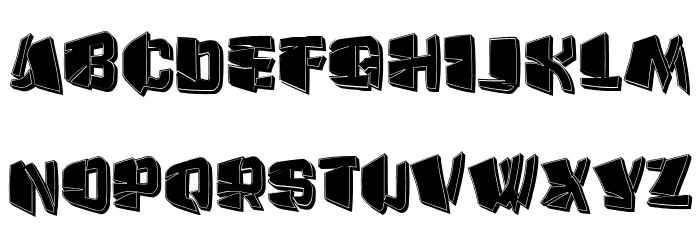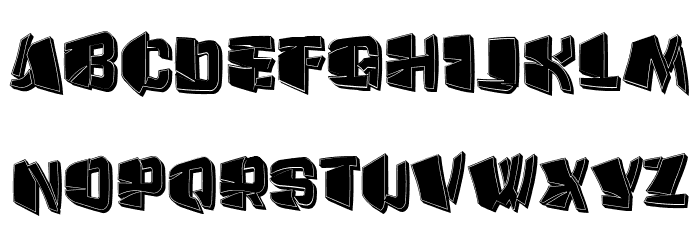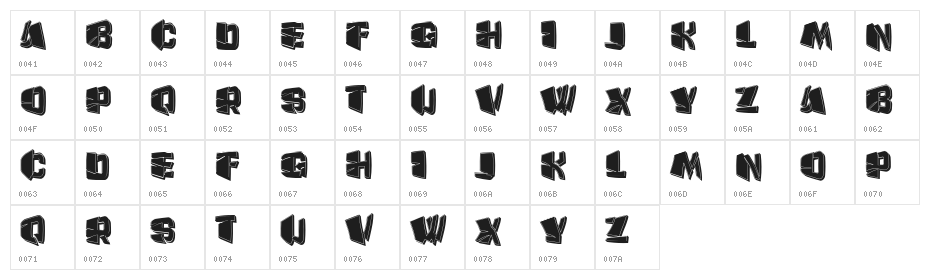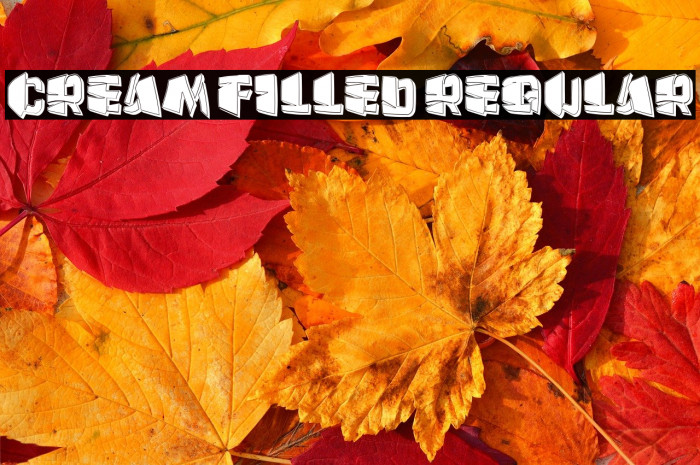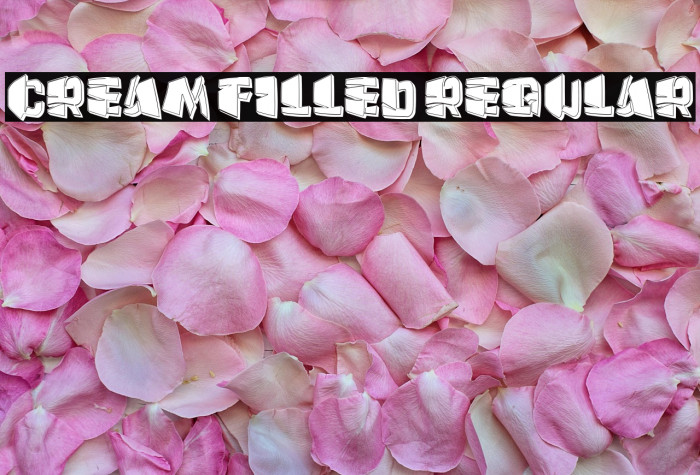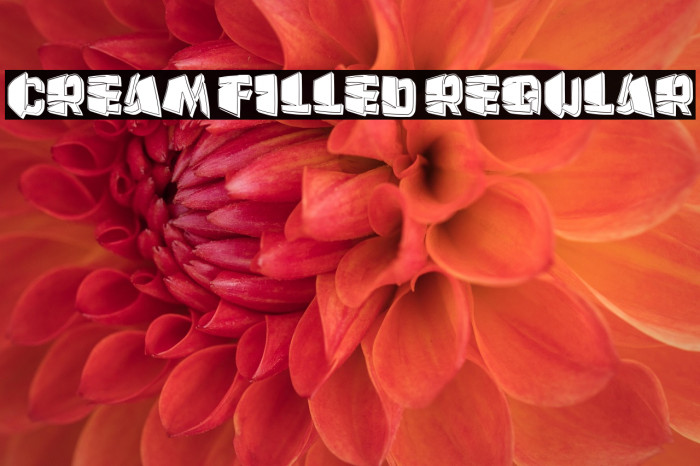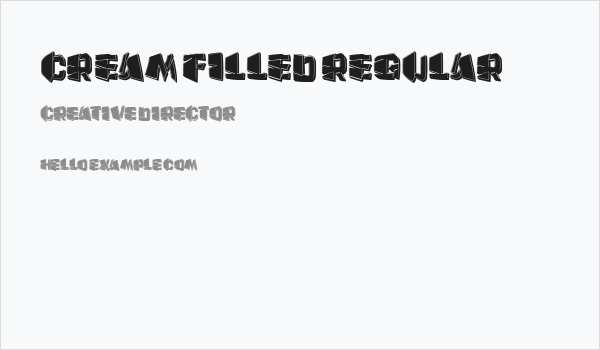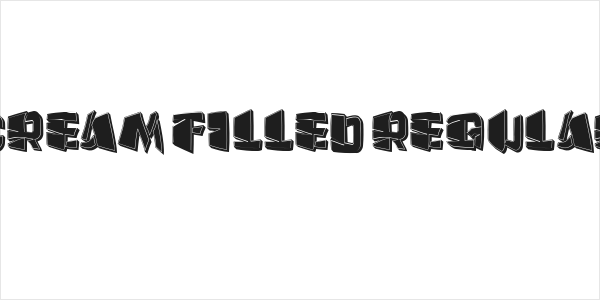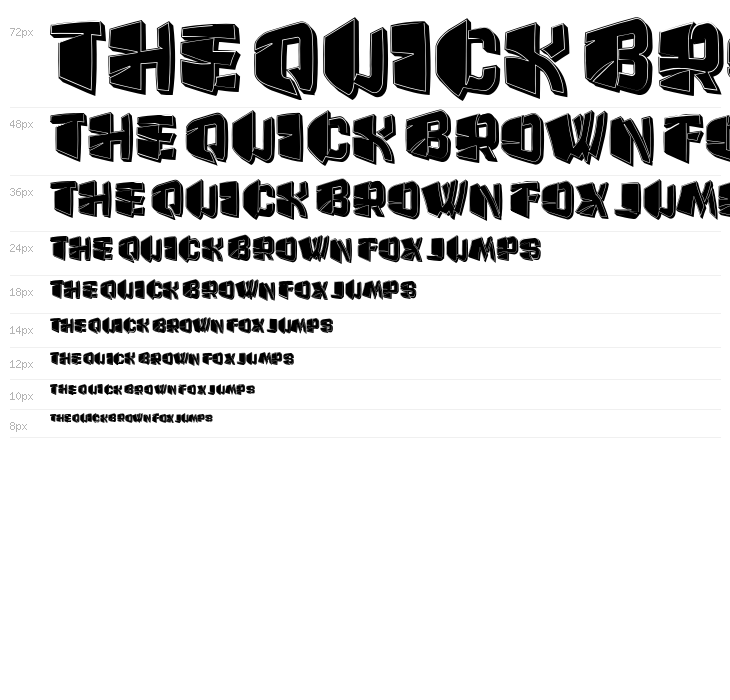
Cream Filled Regular Font
This font features a bold and dynamic style with a three-dimensional effect, giving each character a sense of depth and movement. The letters are filled with a contrasting inner shadow that adds a playful and eye-catching element. The overall design is reminiscent of graffiti or street art, making it ideal for projects that require a modern and edgy look. The uppercase letters are particularly striking, with sharp angles and a sense of motion that draws attention. This font is perfect for creating impactful headlines, posters, or any design that needs a bold statement.
A bold, three-dimensional font with a graffiti-inspired style.
- Proposed Projects: Ideal for street art-inspired designs, posters, headlines, and branding that requires a bold and modern look.